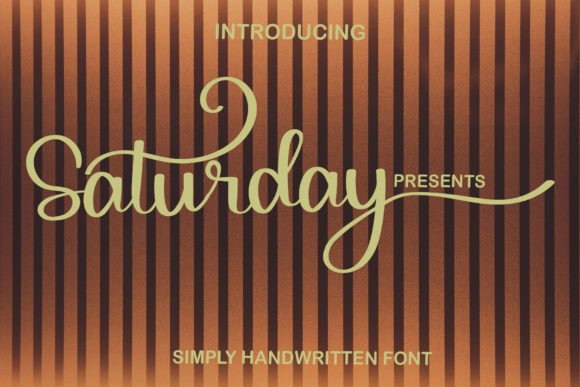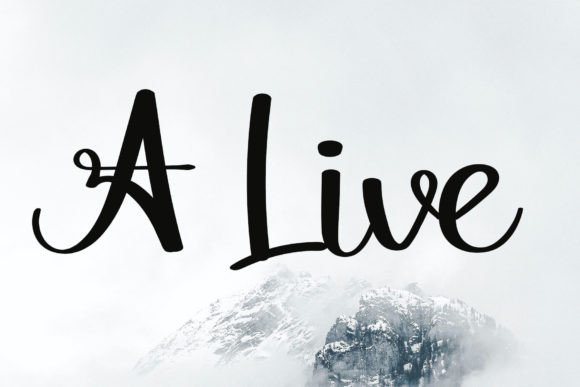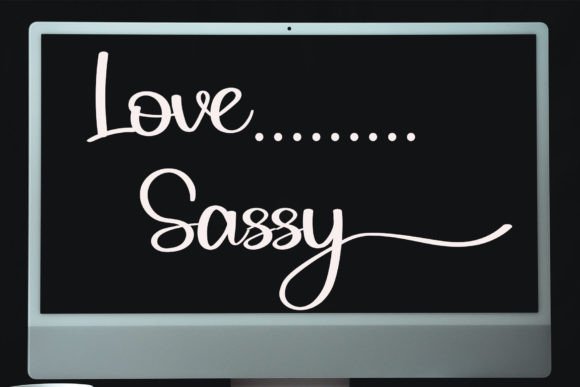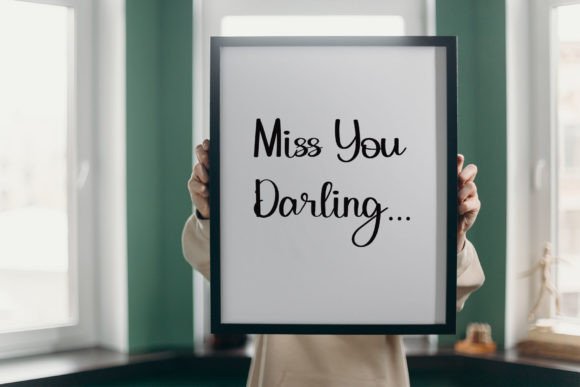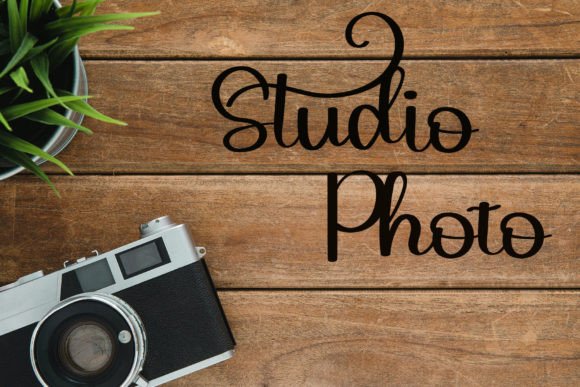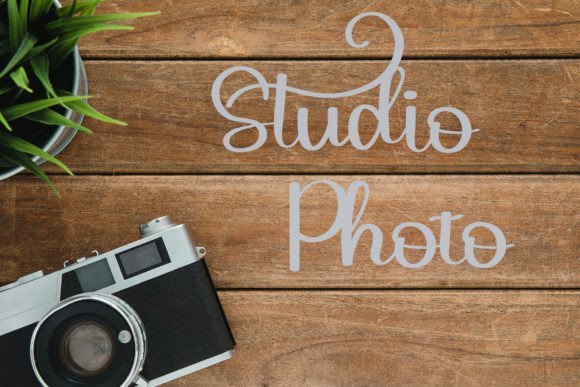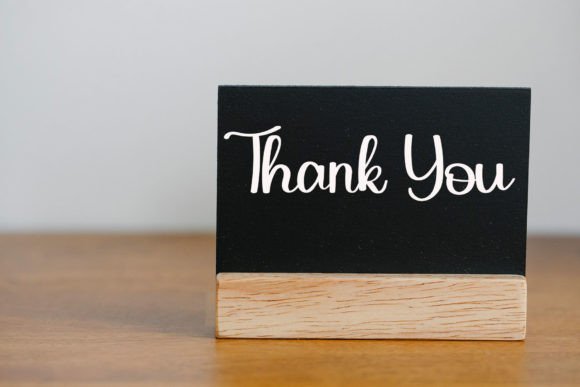
Saturday Font
About Saturday Font
“Saturday” embodies the essence of delicacy, elegance, and graceful flow in a handwritten font. With its beautifully crafted and well-balanced characters, this font effortlessly adapts to a diverse array of designs, making it a versatile and stylish addition to your creative toolkit. Infuse your most imaginative ideas with the charm of “Saturday” and witness how it breathes life into your designs.
The delicate strokes of “Saturday” lend an air of sophistication, making it suitable for a range of applications. From elegant invitations to refined branding, this font possesses the versatility to complement a wide spectrum of design projects. Its flowing nature adds a touch of warmth and personalization, creating a connection with the audience that goes beyond the visual.
In the realm of creativity, fonts play a pivotal role, and “Saturday” stands out as a font that not only complements but enhances your most creative concepts. Its harmonious characters become a canvas for expression, allowing your ideas to unfold with a sense of grace and beauty.
The beauty of “Saturday” lies not only in its aesthetic appeal but in its ability to adapt seamlessly to various design contexts. It becomes a dynamic element that breathes life into your creations, adding an extra layer of elegance that captures attention and resonates with viewers.
Picture “Saturday” enhancing the details of wedding invitations, creating an atmosphere of romance and sophistication. Envision it gracing the branding of a high-end product, embodying a sense of refined luxury. This font is not merely a typeface; it’s a design tool that transforms ordinary projects into extraordinary expressions of creativity.
Incorporating “Saturday” into your designs is an invitation to elevate your creative ideas. Let it be the finishing touch that brings your concepts to life, making them memorable and captivating. With its delicate, elegant, and flowing characteristics, “Saturday” is more than a font; it’s an artistic companion that adds a touch of magic to your most imaginative endeavors.